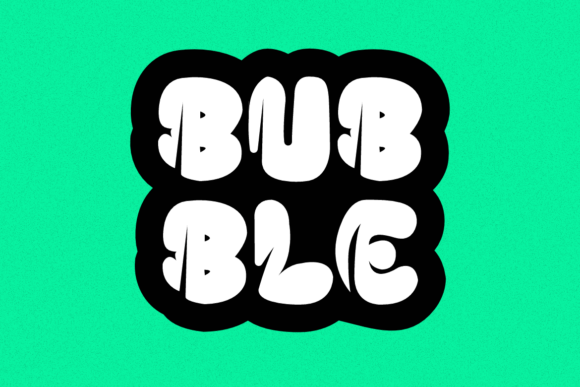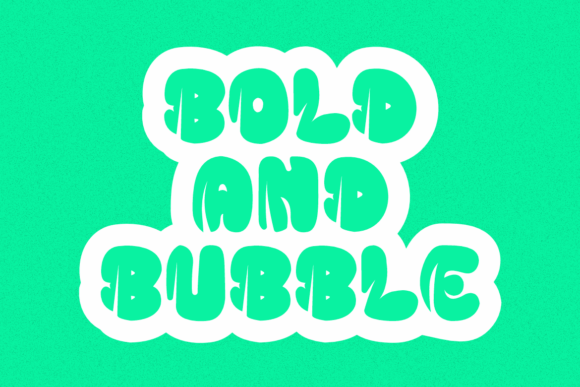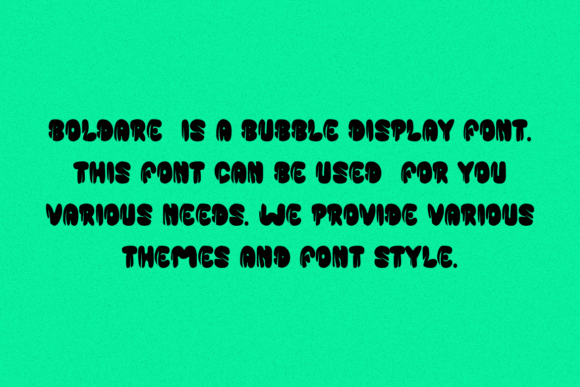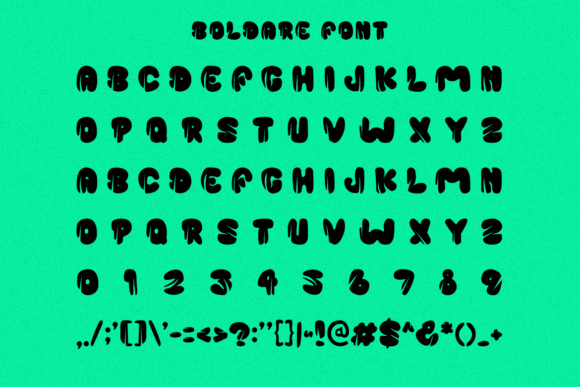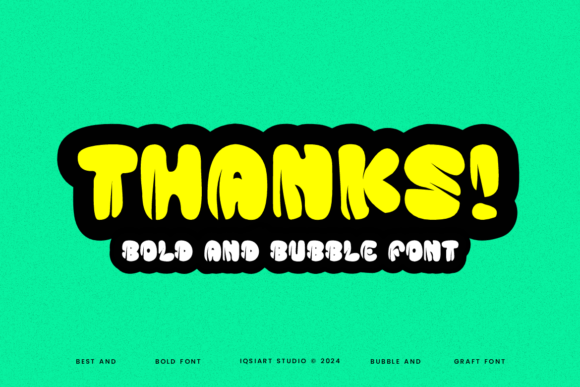
Discover the Unique Charm of Boldare Font: Elevate Your Designs with its Quirky Flair
In the vast and ever-evolving world of typography, finding a font that stands out from the crowd can be a daunting task. However, if you’re on the hunt for a display font that exudes a unique blend of quirkiness and sophistication, look no further than Boldare. This distinctive font is turning heads and captivating audiences with its versatile appeal and wide range of applications. In this article, we’ll dive deep into the characteristics, uses, and benefits of Boldare Font, exploring why it’s becoming a favorite among designers and crafters alike.
The Essence of Boldare Font
Boldare is a unique and interesting display font that embodies a little bit of quirkiness, making it incredibly adept at a wide variety of contexts. Its design is carefully crafted to catch the eye and hold attention, making it perfect for projects that demand a bit of personality. Whether you’re working on a branding project, a website, a poster, or any other visual material, Boldare brings a distinctive touch that can elevate your design from ordinary to extraordinary.
Key Features of Boldare Font
- Unique Design: Boldare boasts a one-of-a-kind design that sets it apart from more traditional fonts. Its quirky elements make it memorable and engaging.
- Versatility: Despite its uniqueness, Boldare is surprisingly versatile. It can be used in a variety of contexts, from digital platforms to print materials.
- Legibility: While it has a distinctive look, Boldare maintains a high level of legibility, ensuring that your message is conveyed clearly and effectively.
- Emotional Connection: The font’s quirky nature allows it to connect with audiences on an emotional level, making it ideal for brands looking to establish a strong, personal identity.
Applications of Boldare Font
The adaptability of Boldare Font is one of its most appealing qualities. Here are some of the many ways you can use Boldare to enhance your projects:
- Branding and Logos: Use Boldare to create a memorable logo or brand identity that stands out in your industry.
- Web Design: Add a touch of personality to your website with Boldare, perfect for headings, titles, and call-to-action buttons.
- Print Materials: From posters and flyers to brochures and business cards, Boldare can add a unique flair to any print material.
- Social Media Graphics: Stand out on social media with eye-catching graphics and posts designed with Boldare.
- Packaging: Make your product packaging more appealing and distinctive with the Boldare font.
Tips for Using Boldare Font Effectively
To make the most of Boldare Font, consider the following tips:
- Pair it Wisely: Combine Boldare with complementary fonts to create visual interest and hierarchy in your designs.
- Use it Sparingly: While Boldare is eye-catching, using it sparingly can make it more impactful. Consider using it for titles or key messages.
- Experiment with Colors: Don’t be afraid to experiment with different colors and gradients to enhance the quirkiness and appeal of Boldare.
Boldare Font offers a refreshing alternative to traditional display fonts, bringing a unique blend of quirkiness and sophistication to the table. Its versatility, legibility, and emotional resonance make it an excellent choice for designers and crafters looking to add a distinctive touch to their projects. Whether you’re aiming to create a bold brand identity, design an engaging website, or simply add some personality to your print materials, Boldare is up to the task. Embrace the charm of Boldare Font and discover how it can elevate your designs to new heights.